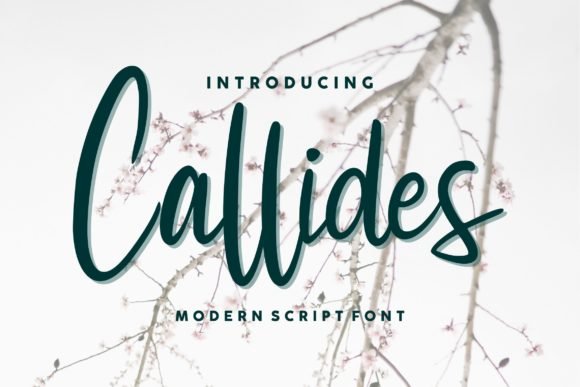
Unlock the Magic of Handwritten Charm
As a designer, there’s nothing quite like the thrill of bringing a new project to life. You pour your heart and soul into every detail, searching for that special something that sets it apart. And then, like a whisper of inspiration, you stumble upon the perfect font. For many, that font is the Callides Script Font – a romantic and sweet calligraphy typeface that adds a touch of luxury to any design project.
With its elegant, flowing characters that dance along the baseline, Callides Script Font is the perfect choice for designers looking to create a sense of whimsy and sophistication. Whether you’re crafting a wedding invitation, a birthday card, or a branding package, this beautiful font is sure to add a touch of magic to your design.
Callides Script Font Key Features
- Unique Characteristics: Hand-drawn, elegant, and cursive script font with high-end feel, ideal for invitations, wedding stationery, and luxury branding
Designer Review: Callides Script Font
Overall, I’m quite impressed with the Callides Script Font. It’s a beautiful, elegant script font that can add a touch of sophistication to any design project.
- ✨ Elegant and refined design, perfect for creative and formal projects
- ✨ Smooth connections between letters, making it easy to read
However, I did encounter a few limitations:
- ⚠️ The font may not be ideal for small text sizes, as the connections between letters can become fuzzy
- ⚠️ Some characters, like the ‘q’ and ‘x’, can be tricky to use in certain combinations
- ⚠️ The font family is not as extensive as some other script fonts on the market
Overall, I think the Callides Script Font is a great addition to any designer’s toolkit. While it has its limitations, it’s a beautiful and versatile font that can add a touch of elegance to any project. With a little creativity and experimentation, you can get the most out of this font and create stunning designs.
Getting the Most Out of Callides Script Font
For best results, use Callides Script Font for headings and titles, as it’s a script font and works well for short phrases.
Avoid using it for large blocks of text, as it can be difficult to read.
Callides Script Font is great for:
Alternatives to Callides Script Font
Callides Script Font is a beautiful script font suitable for various design purposes. However, sometimes you may need alternatives that offer unique characteristics or better compatibility. Here are a few alternatives to consider:
Great Vibes Font is a popular script font that offers a modern and elegant feel. It’s ideal for use in logos, branding, and advertising materials. Great Vibes Font is more versatile than Callides Script Font, with a wider range of weights and styles available. It’s also more compatible with various devices and systems.
Carolyna Pro Font is a high-end script font that exudes sophistication and luxury. It’s perfect for use in high-end branding, luxury goods, and fine art. Carolyna Pro Font is more refined and polished than Callides Script Font, with a more precise and elegant feel. However, it may be more challenging to use in informal or casual designs.
Alex Brush Font is a beautiful script font that offers a handwritten feel. It’s ideal for use in invitations, greeting cards, and other personal designs. Alex Brush Font is more playful and casual than Callides Script Font, with a softer and more relaxed feel. It’s also more suitable for use in digital designs, such as social media graphics and web pages.
Pacifico Font is a elegant script font that offers a tropical and relaxing feel. It’s perfect for use in travel and leisure branding, as well as in designs related to food and drink. Pacifico Font is more laid-back and casual than Callides Script Font, with a more open and airy feel. However, it may be less suitable for use in